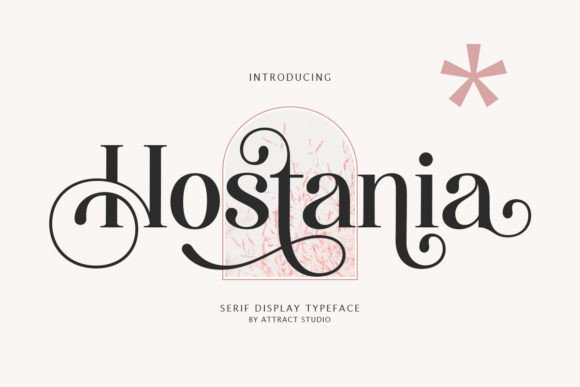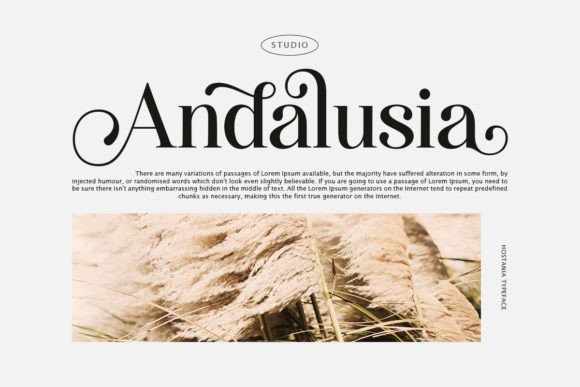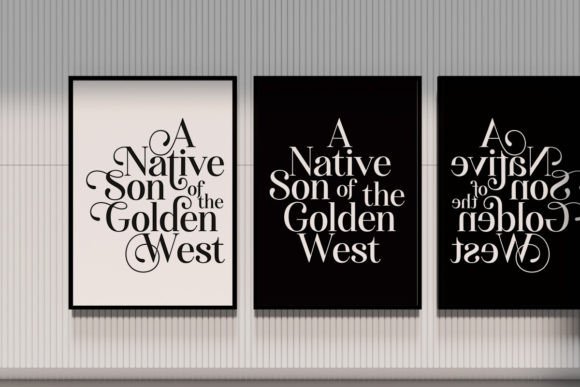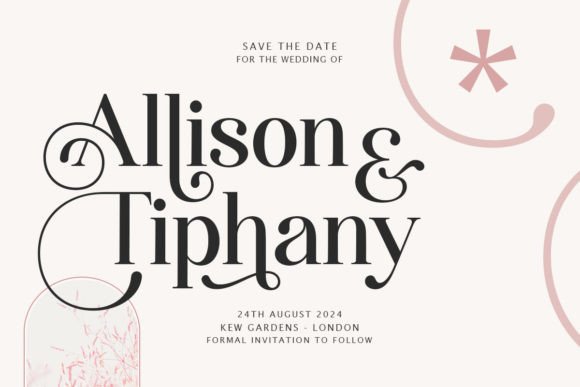
Hostania Font: Elegant Serif Typography for Modern Logo Design
About the Hostania Font
Unleash your creativity with Hostania Font, a versatile font perfect for a wide range of applications. Hostania is a beautiful and nostalgic serif typeface that looks amazing in both large and small settings as both display and body text. Best used as a showcase for titles and logos, giving any project an extra touch of class.
Hostania’s nostalgic elegance shines brightest in headlines, logos, and short-form text such as invitations or certificates. Its refined serifs lend a touch of classic sophistication, ideal for brands projecting heritage or timeless quality. Avoid using Hostania for large blocks of body text; its intricate details can become visually overwhelming at smaller sizes.
Pairing Hostania effectively requires considering its inherent formality. A clean sans-serif like Open Sans would provide a strong contrast for body copy, while a playful script font like Pacifico could add a touch of whimsy to supporting elements, creating a balanced design. Alternatively, a geometric sans-serif could provide a modern counterpoint, suitable for projects aiming for a sophisticated yet contemporary feel.
Hostania’s overall personality is best described as sophisticated and subtly nostalgic. It is well-suited to projects within the luxury goods, publishing, or heritage brands sectors. Using it sparingly, as a key design element, will maximize its impact.
Hostania Font Usage Examples
Hostania Font Example